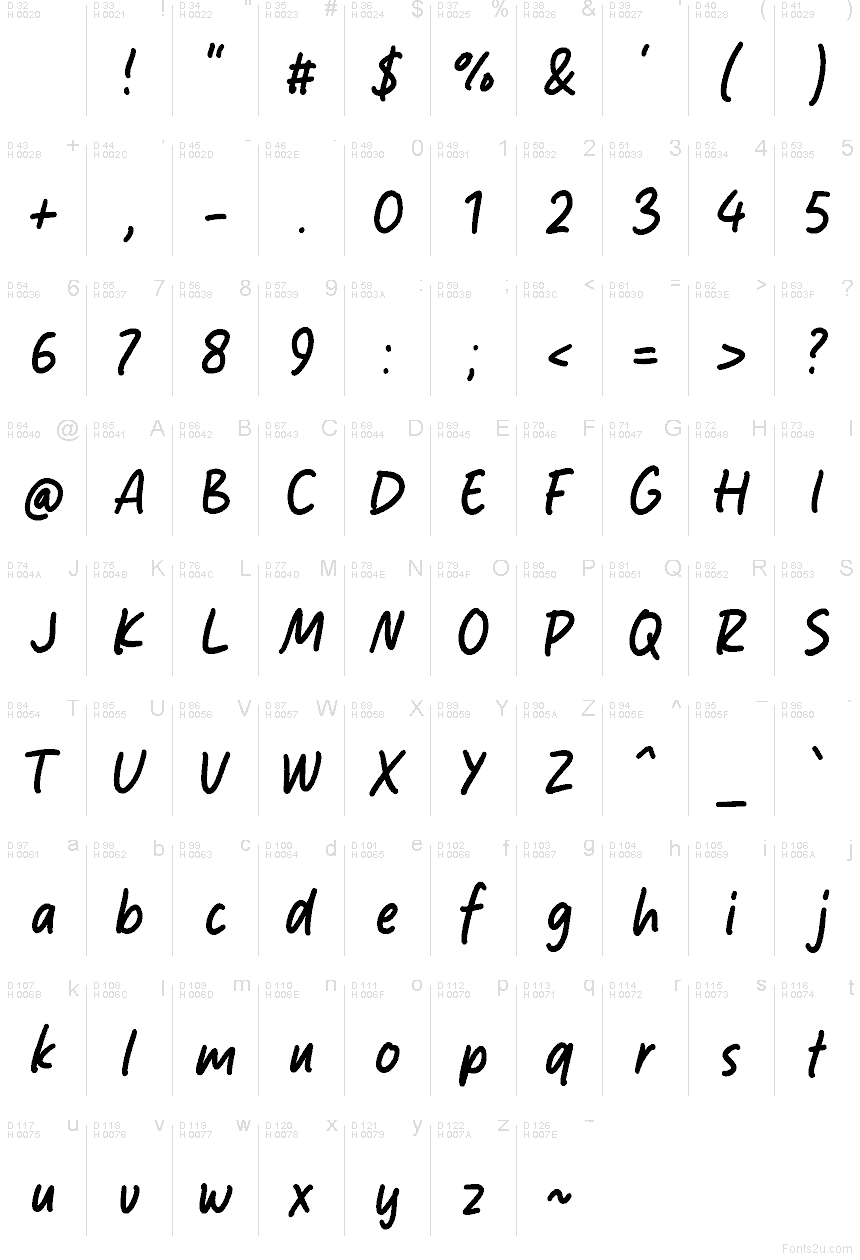
Silva Marine
Silva Marine font by MJType is a free handwritten font that hits that sweet spot between casual and clean. Its smooth, brush-like strokes feel personal and relaxed, but the letters stay steady and upright enough to read at a glance. The slight texture gives it a warm, ink-on-paper feel, while the consistent rhythm keeps your layouts from looking chaotic or “too crafty.”
Using Silva Marine, you can bring a friendly, human touch to logos, packaging, quote graphics, social posts, invitations, and blog headers without sacrificing legibility. This free font shines when you set it a bit larger and pair it with a simple sans serif for body text to balance its lively curves.